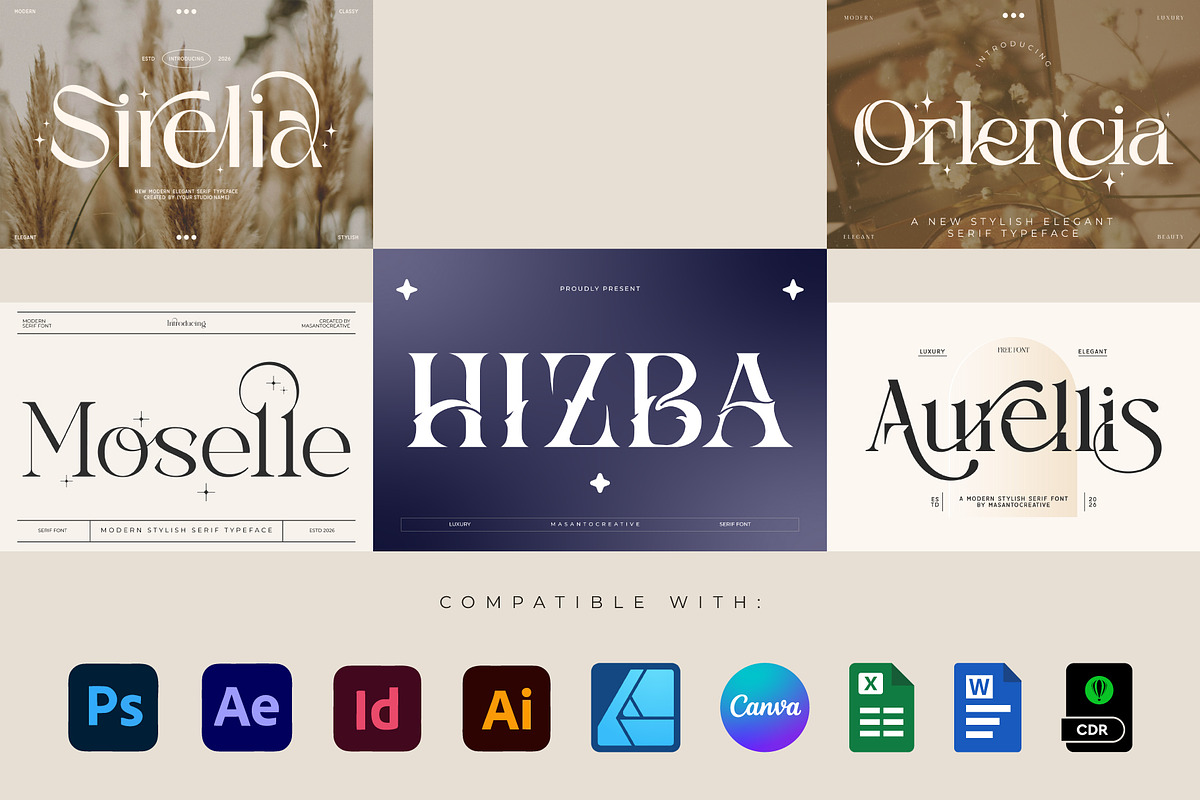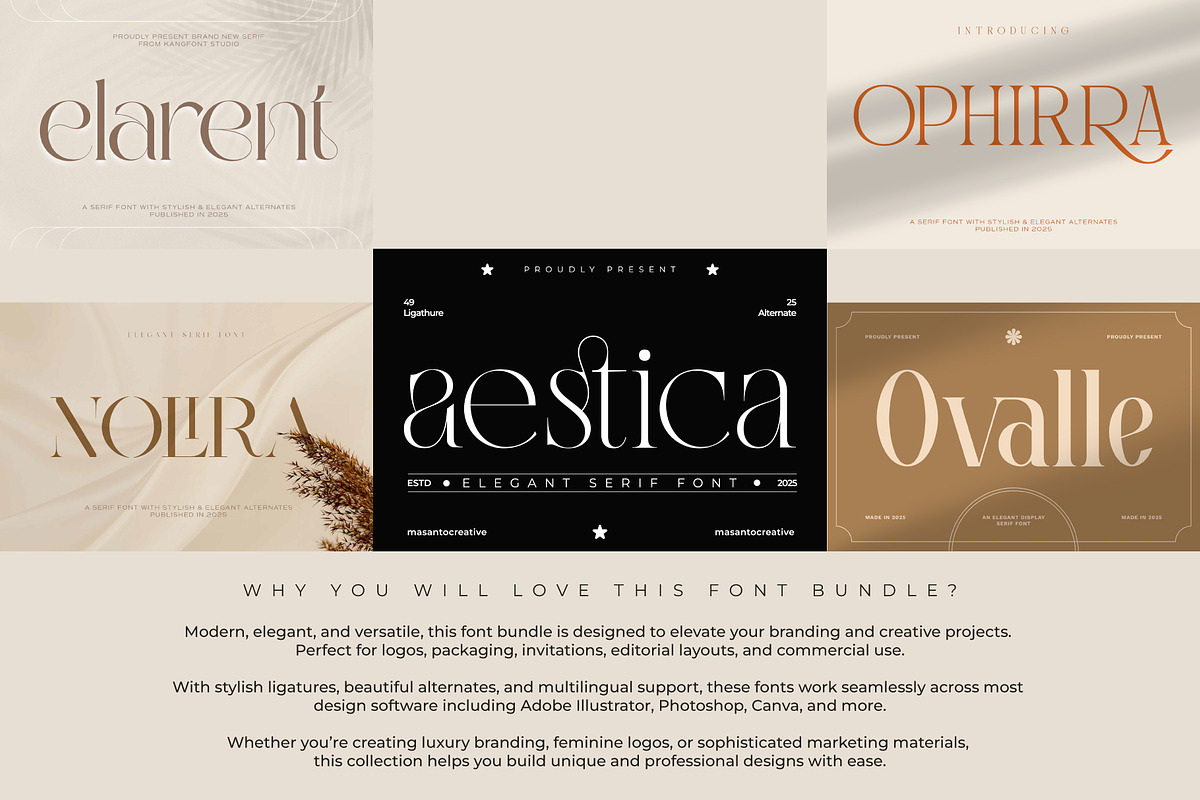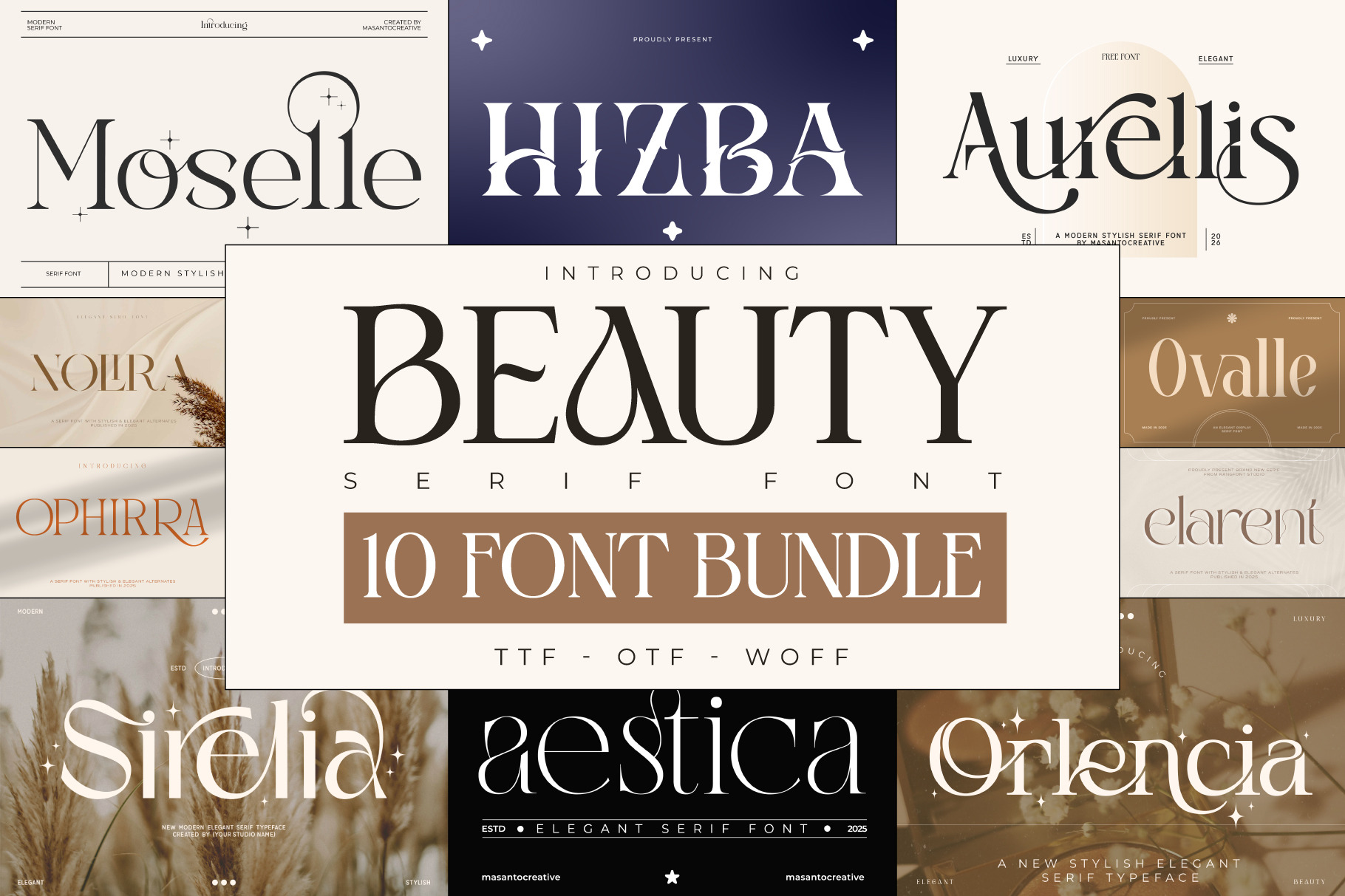
10 Luxury Serif Fonts Bundle
✨ 10 Luxury Serif Font Bundle Elevate your creative projects with this curated bundle of 10 elegant modern serif fonts designed for premium branding, sophisticated logos, packaging, invitations, and editorial layouts. This collection includes beautifully crafted luxury fonts with stylish ligatures, alternates, and multilingual support — perfect for designers, business owners, and content creators.
💎 Perfect For:
Luxury branding
Logo design
Wedding invitations
Packaging design
Editorial layouts
Fashion & beauty brands
Ligatures & Alternates
✔ Why You’ll Love It:
Elegant and timeless typography
High-end branding aesthetic
Perfect for personal and client work
🚀 Why You’ll Love This Bundle